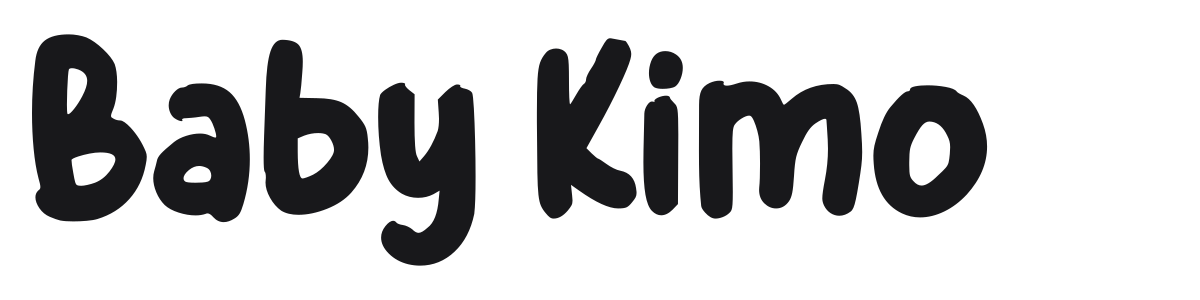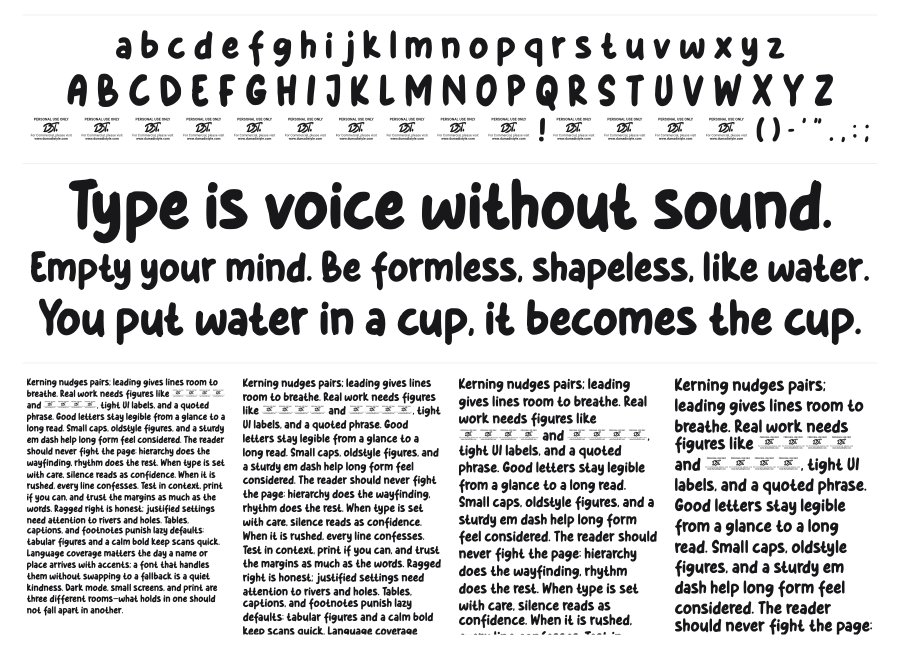
Baby Kimo
Baby Kimo is a bold, rounded display font with thick hand-drawn strokes and a cheerful comic energy. The slightly wobbly outlines and soft terminals give it an authentic handmade feel, somewhere between a brush marker and a cartoon lettering style. It works well wherever a friendly, informal personality is needed.